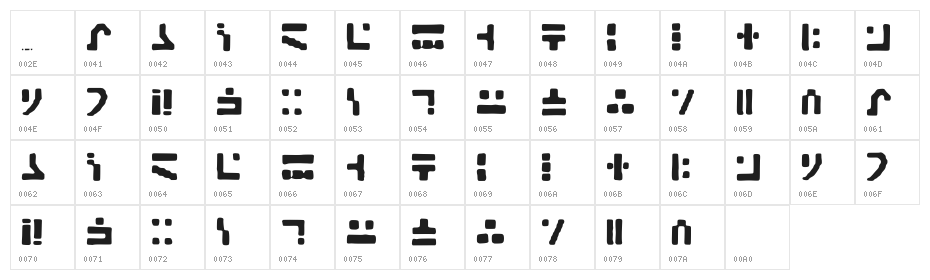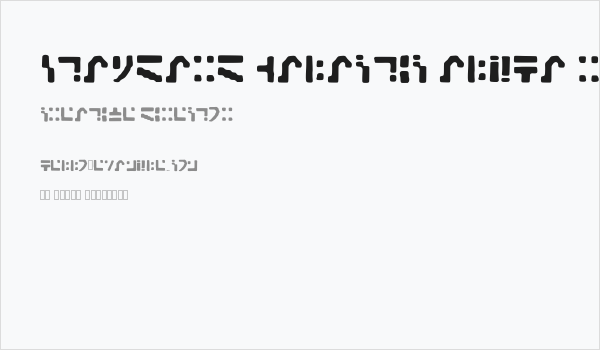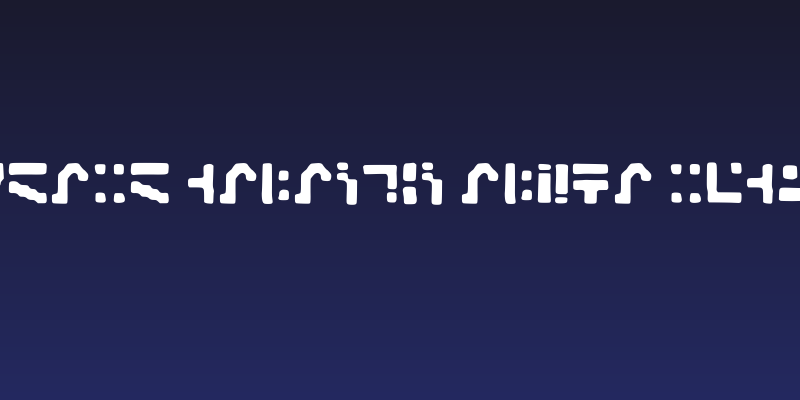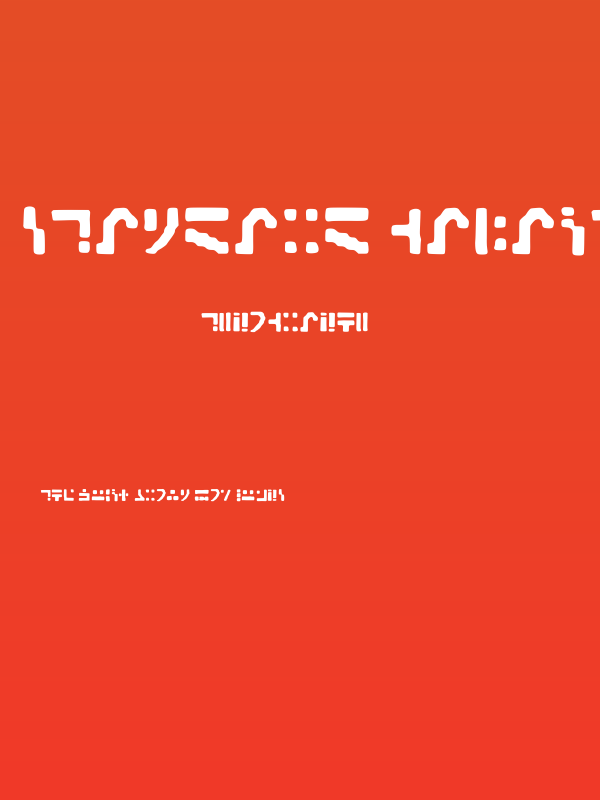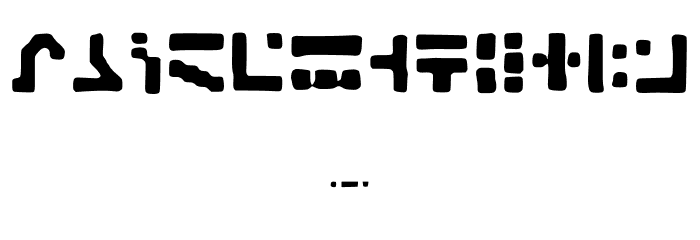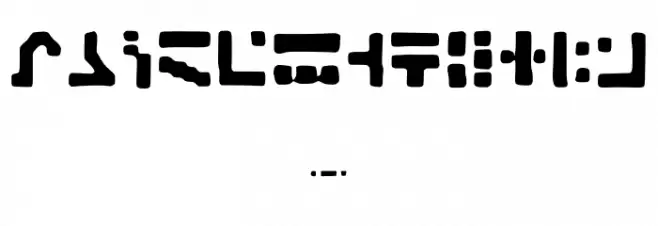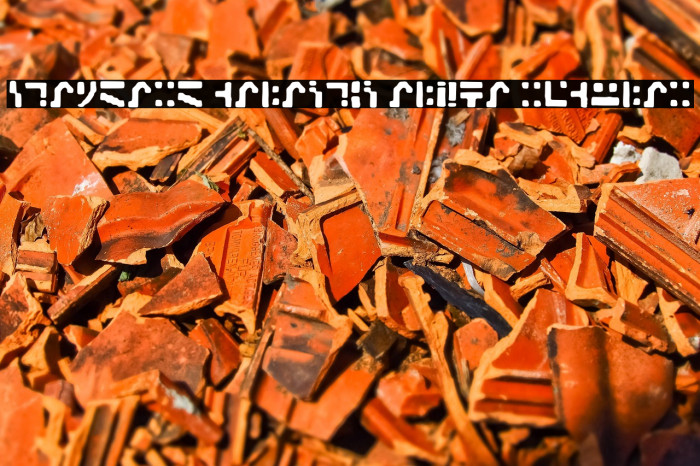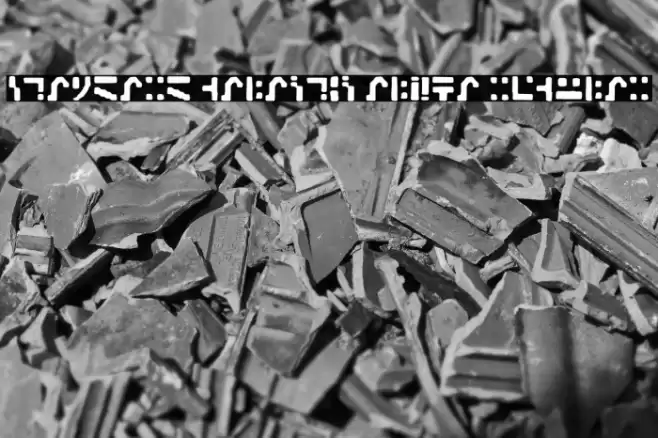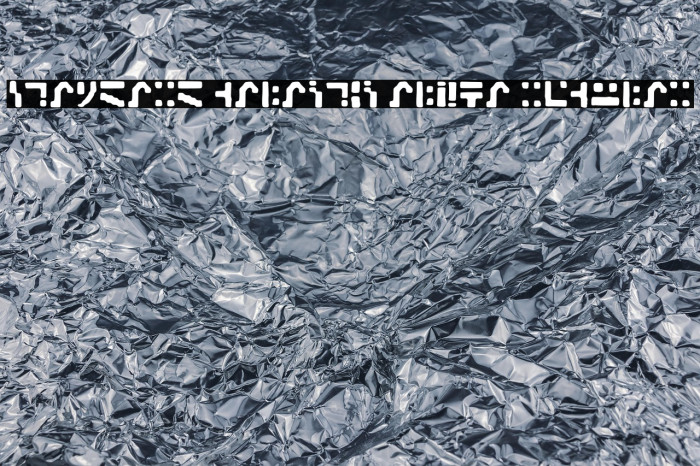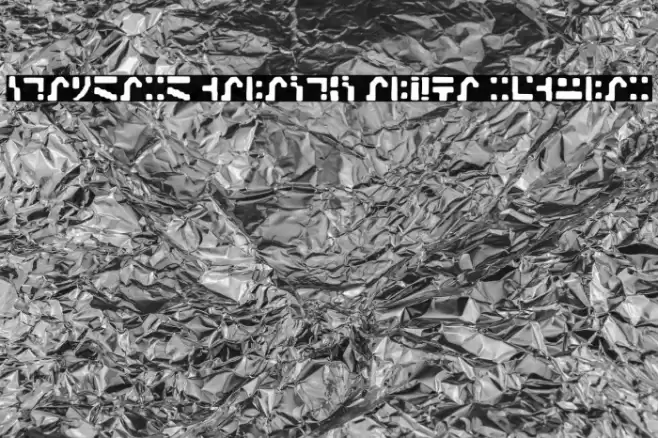
Standard Galactic Alpha Regular Font
Standard Galactic Alpha Regular Description
This font features a unique, alien-like design with abstract, geometric shapes that resemble a futuristic script. The characters are composed of bold, solid strokes with varying thickness, creating an otherworldly appearance. The style is highly decorative, with each letterform appearing as a distinct symbol, making it ideal for creative and thematic projects. The font's design is reminiscent of science fiction and fantasy aesthetics, providing a sense of mystery and intrigue.
| Overall Style | Futuristic, Decorative |
| Use Case | Logos, Posters, Creative Projects |
| Proposed Projects | Ideal for science fiction themed projects, video game design, movie posters, and creative branding. |